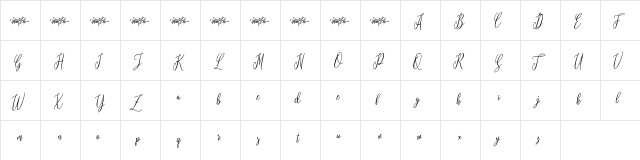
lovelique demo Regular
Design Context for lovelique demo Typeface
lovelique demo is a composed and adaptable typeface that performs quietly and consistently across a wide range of design contexts.
Pro Tip: Pair lovelique demo with a font of contrasting weight or personality to build a more expressive typographic hierarchy.